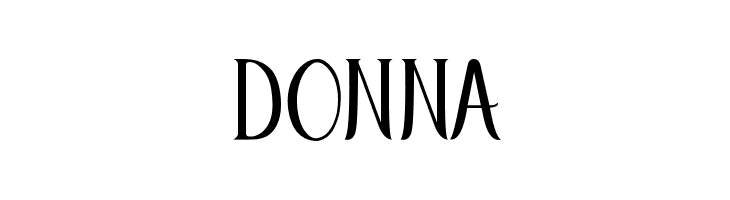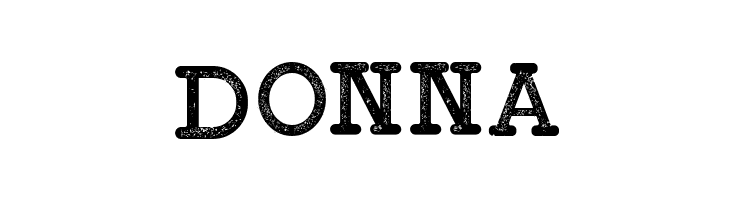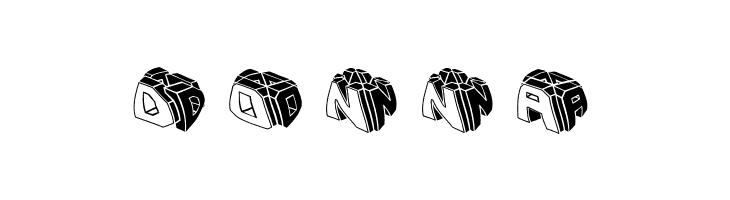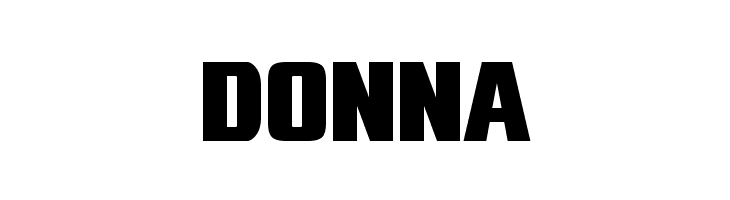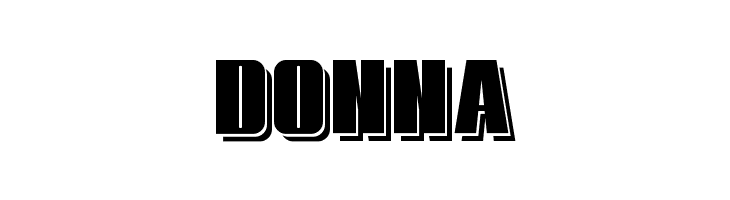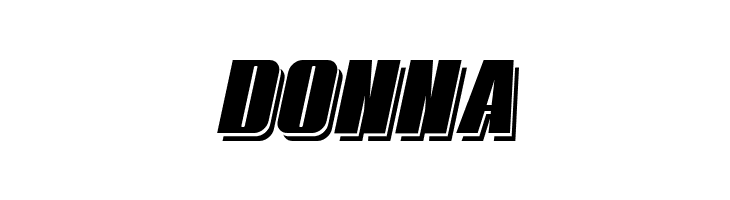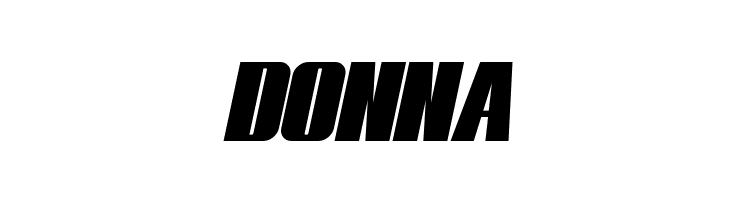
A bold, three-dimensional box-like font with rounded edges and a geometric style.
A vintage, monospaced slab serif font with a typewriter style and distressed texture.
A bold, modern font with thick, block-like letters and high contrast.
A bold, shadowed font with a strong, three-dimensional appearance.
A bold, italic font with a shadow effect, perfect for dynamic and eye-catching designs.
A bold, italicized font with high contrast and dynamic slant.
A playful and elegant font with cursive-like strokes and whimsical design.